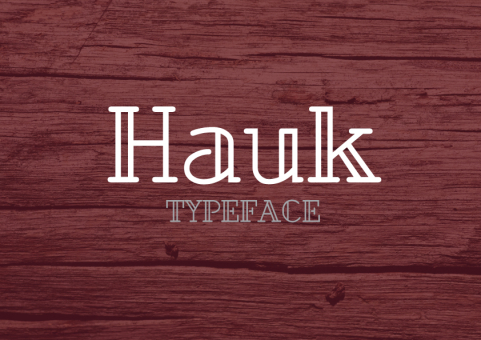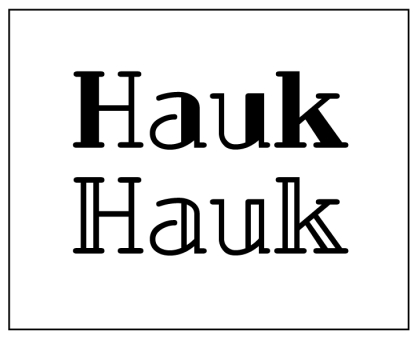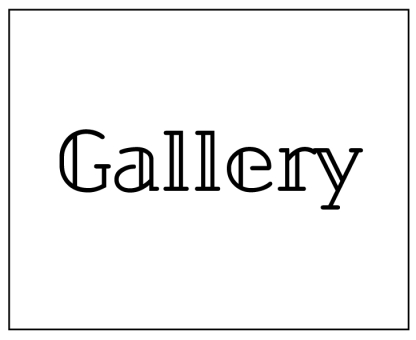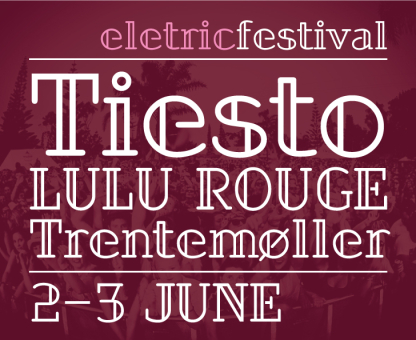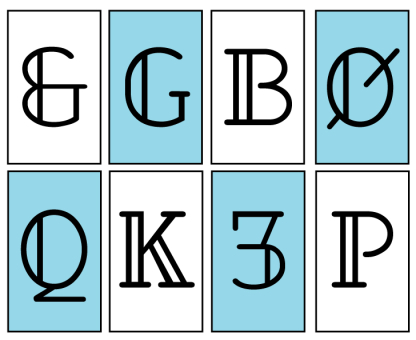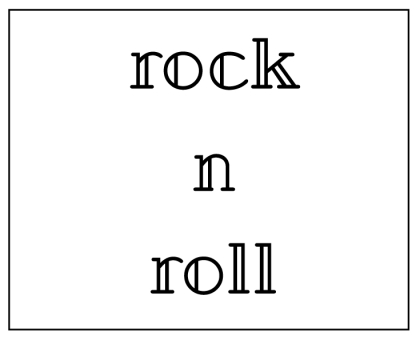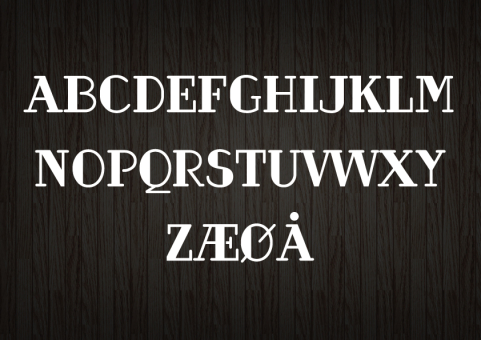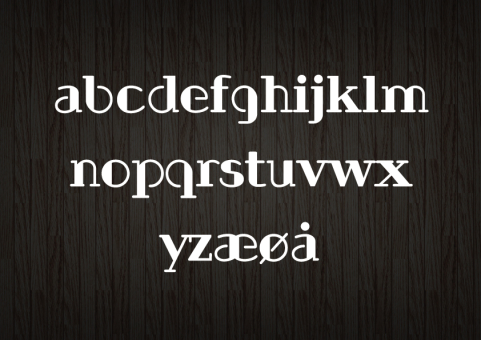
Hauk
Hauk is a classic avangarde typeface. the inpiration is coming from old times, fashion in paris.
Designer: Jan-Christian Bruun
Publisher: Jan-Christian Bruun